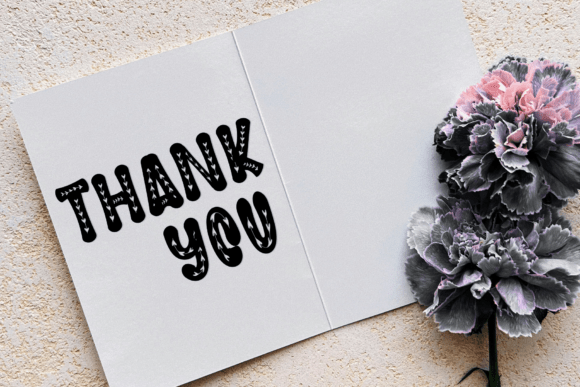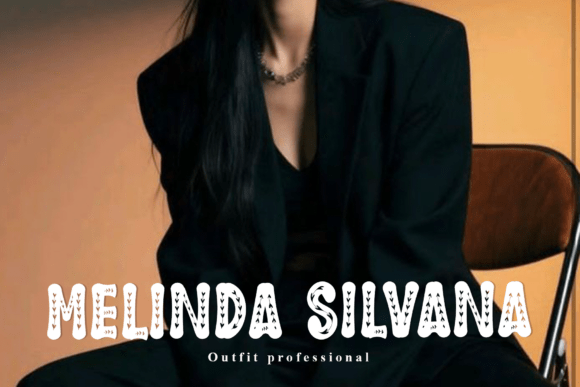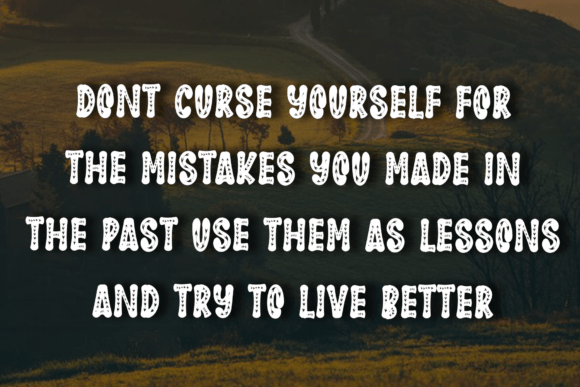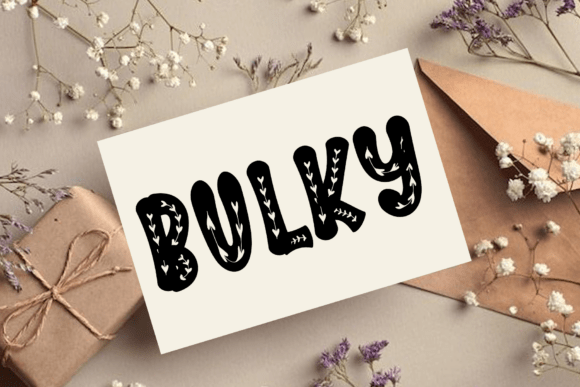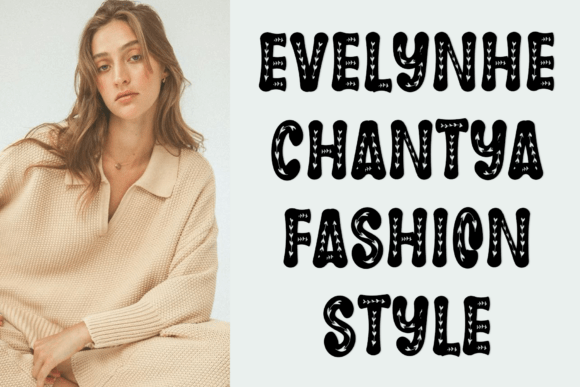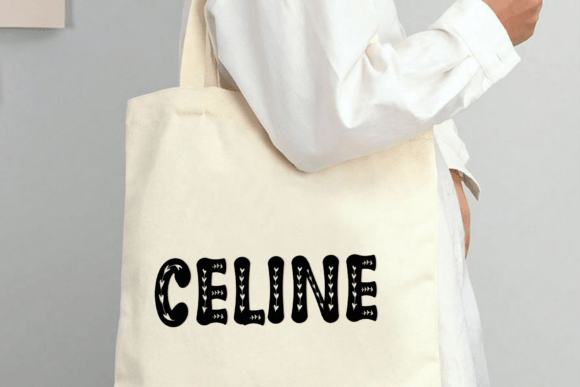
Introducing Bold Writing Font: The Perfect Choice for Creative Designs
Are you looking for a font that can add a personal touch to your designs? Look no further than Bold Writing Font, a casual and creative font that exudes warmth and friendliness. This charming font is perfect for designers and crafters who want to create unique and approachable designs for personal projects, invitations, and social media graphics.
The Characteristics of Bold Writing Font
Bold Writing Font is characterized by its round, playful strokes that create a relaxed and casual feel. The font’s hand-drawn aesthetic adds a fun and unique touch to any design, making it perfect for those who want to add a personal touch to their work. The font’s charming and friendly appearance makes it ideal for designs that require a warm and approachable feel.
Perfect for Personal Projects and Designs
Bold Writing Font is perfect for personal projects, such as creating invitations, greeting cards, and social media graphics. The font’s casual and creative feel makes it ideal for designers who want to create unique and eye-catching designs that stand out from the crowd. Whether you’re designing for a special occasion or just want to add a personal touch to your social media posts, Bold Writing Font is the perfect choice.
Compatibility with Various Design Applications
Advantages of Using Bold Writing Font
There are several advantages to using Bold Writing Font in your designs. Some of the benefits include:
• Unique and eye-catching designs: Bold Writing Font’s hand-drawn aesthetic and playful strokes create unique and eye-catching designs that stand out from the crowd.
• Warm and approachable feel: The font’s charming and friendly appearance adds a warm and approachable feel to any design.
• Perfect for personal projects: The font is perfect for personal projects, such as creating invitations, greeting cards, and social media graphics.
Tips for Using Bold Writing Font
Here are some tips for using Bold Writing Font in your designs:
• Use it for headings and titles: Bold Writing Font is perfect for headings and titles, as it adds a playful and eye-catching touch to any design.
• Experiment with different colors: The font looks great in a variety of colors, so don’t be afraid to experiment and find the perfect color for your design.
• Pair it with other fonts: Bold Writing Font pairs well with other fonts, so try pairing it with a serif font for a unique and interesting design.
Bold Writing Font is a casual and creative font that is perfect for designers and crafters who want to add a personal touch to their designs. Its charming and friendly appearance, combined with its compatibility with various design applications, make it an ideal choice for personal projects, invitations, and social media graphics. With its unique and eye-catching designs, warm and approachable feel, and ease of use, Bold Writing Font is a great addition to any designer’s toolkit.